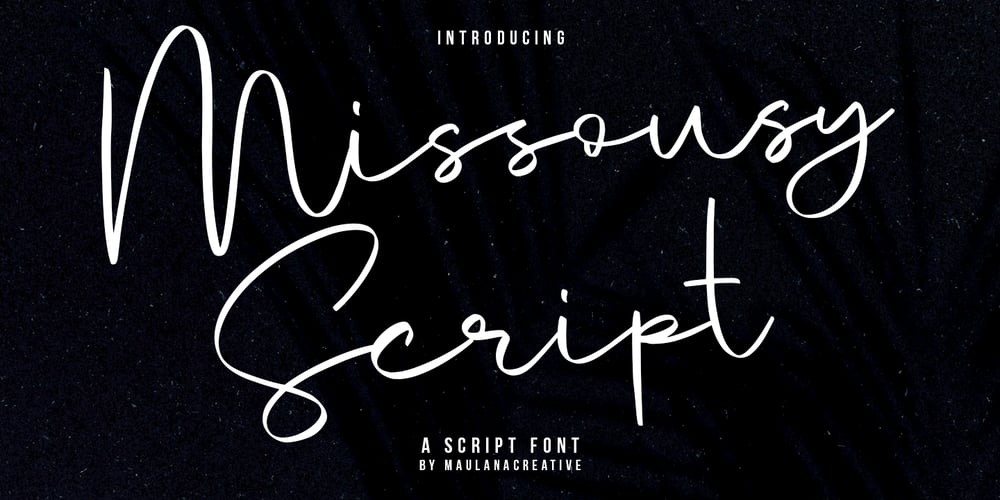
Missousy Font Family was designed by Gilang Maulana and published by Maulana Creative. Missousy contains 1 styles and family package options. Missousy is casual handwritten font, with high contrast clean stroke, upright and fun character. It has Opentype features ligatures of character, To give you an extra creative work. Missousy handwritten font support multilingual more than 100+ language. This font is good for logo design, Social media, Movie Titles, Books Titles, a short text even a long text letter and good for your secondary text font with sans or serif. Make a stunning work with Missousy font. Cheers, MaulanaCreative